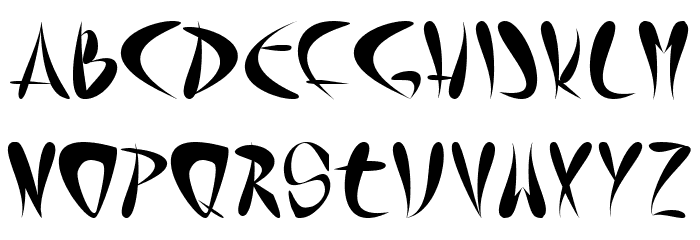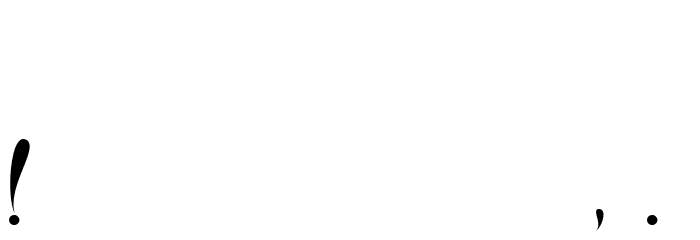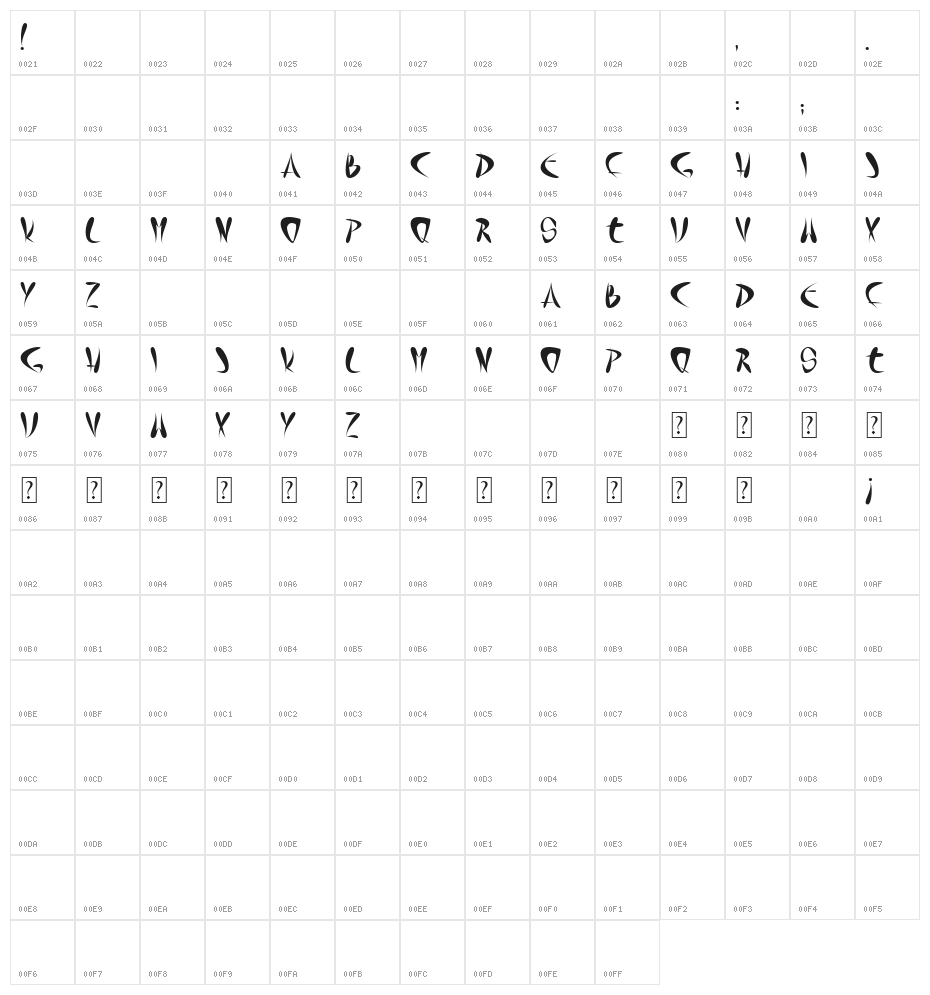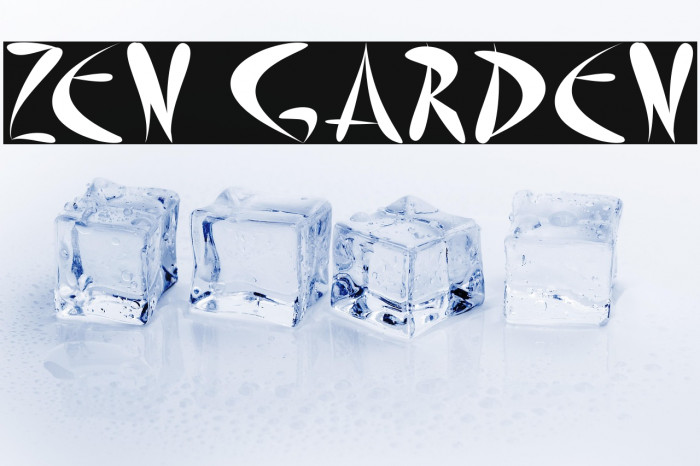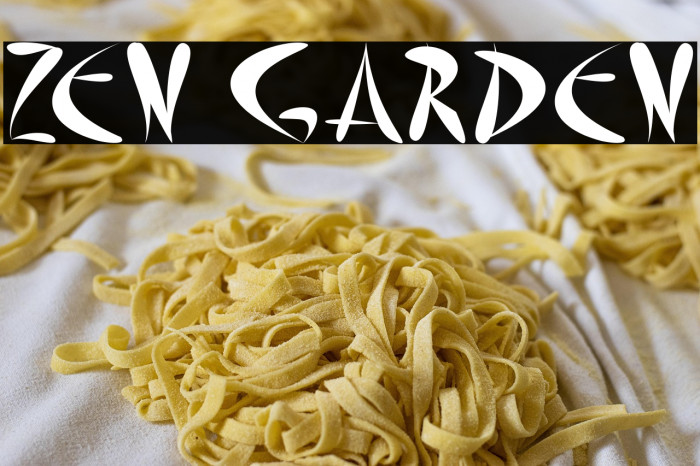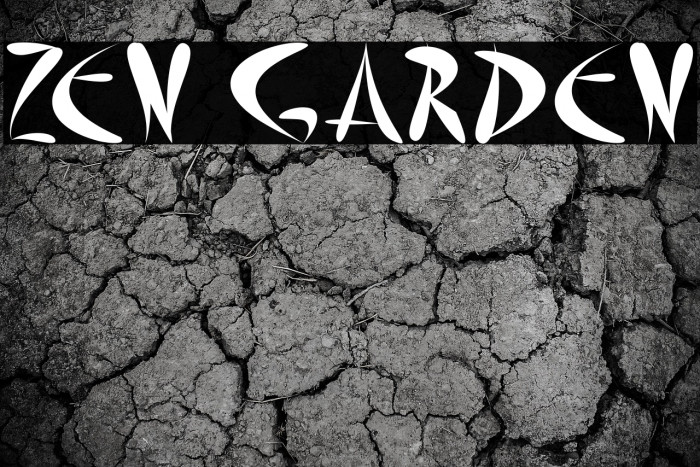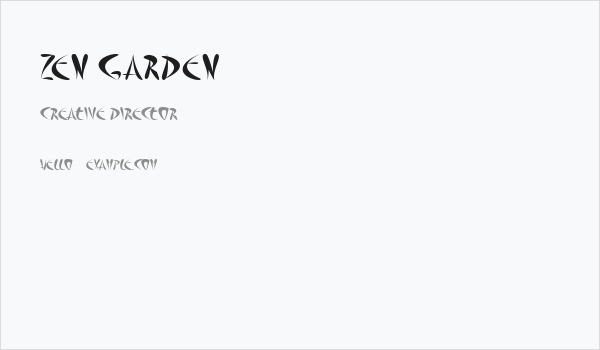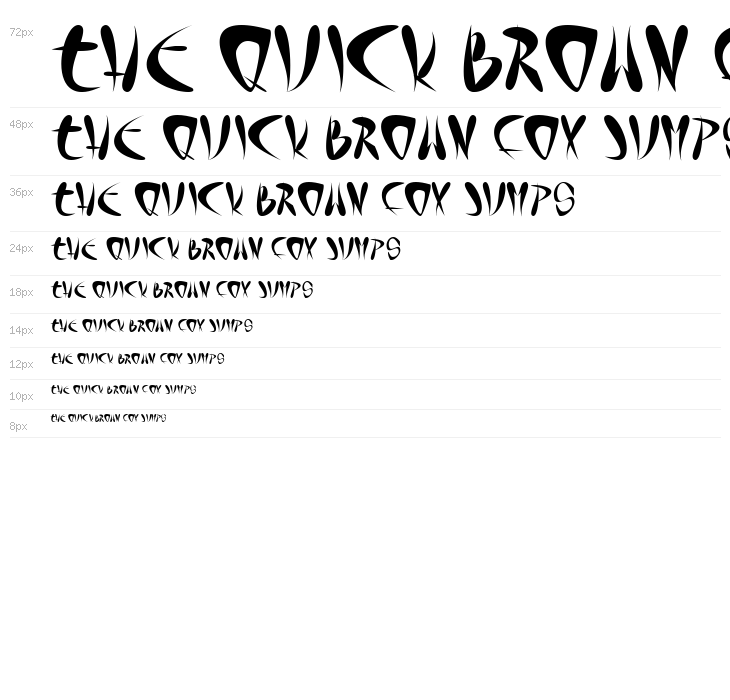
Zen Garden Font
This font features a dynamic and artistic style, characterized by its bold and sweeping strokes that evoke a sense of movement and fluidity. The letters are crafted with sharp, angular edges and elongated forms, creating a dramatic visual impact. The design incorporates a blend of thick and thin lines, adding a touch of elegance and sophistication. The overall appearance is both modern and artistic, making it suitable for creative and expressive projects. The font's unique style is reminiscent of calligraphy, with a contemporary twist that sets it apart from traditional scripts.
A dynamic, artistic font with bold, sweeping strokes and angular edges.
- Proposed Projects: Ideal for artistic projects, branding, posters, and creative designs that require a bold and expressive typeface.
- Overall Style: Modern, Artistic